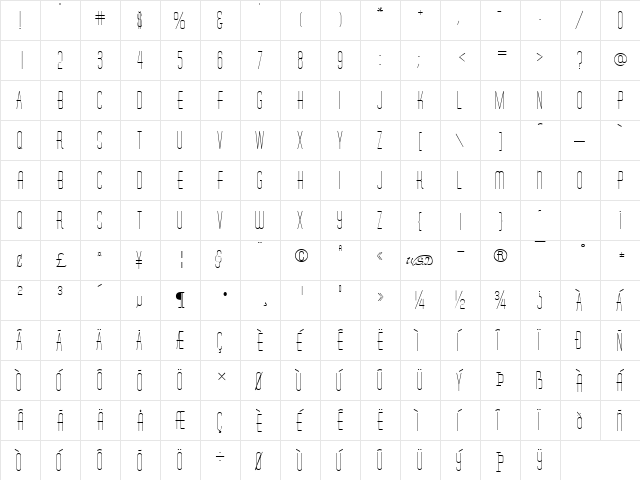
Melanin normal
Design Context for Melanin Typeface
Melanin is a composed and adaptable typeface that performs quietly and consistently across a wide range of design contexts.